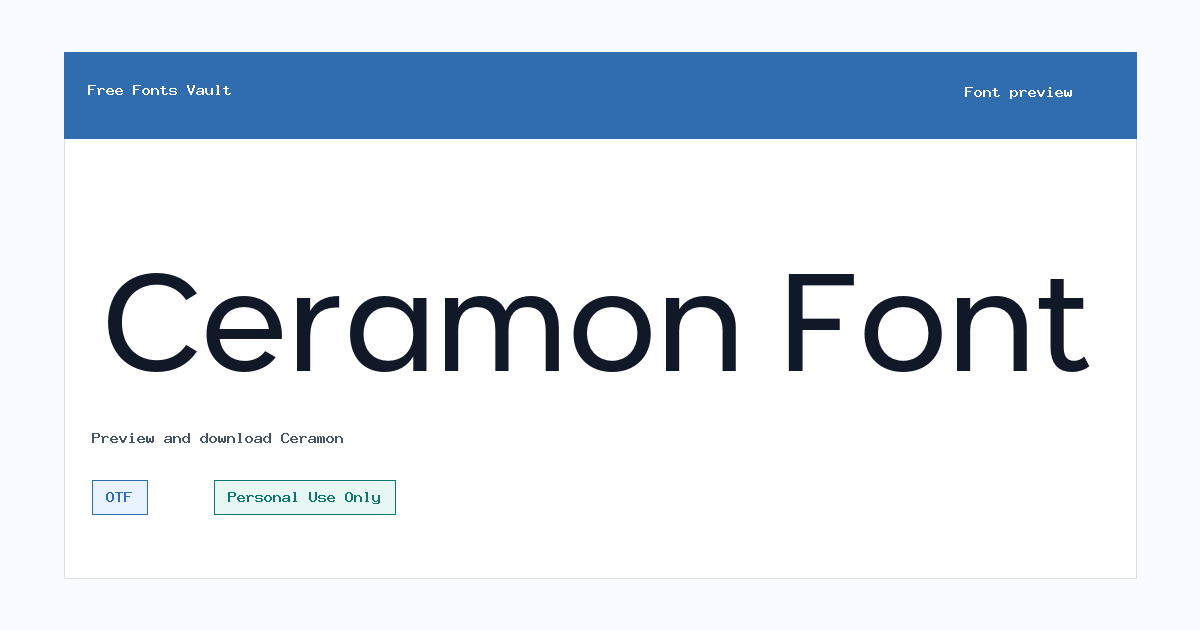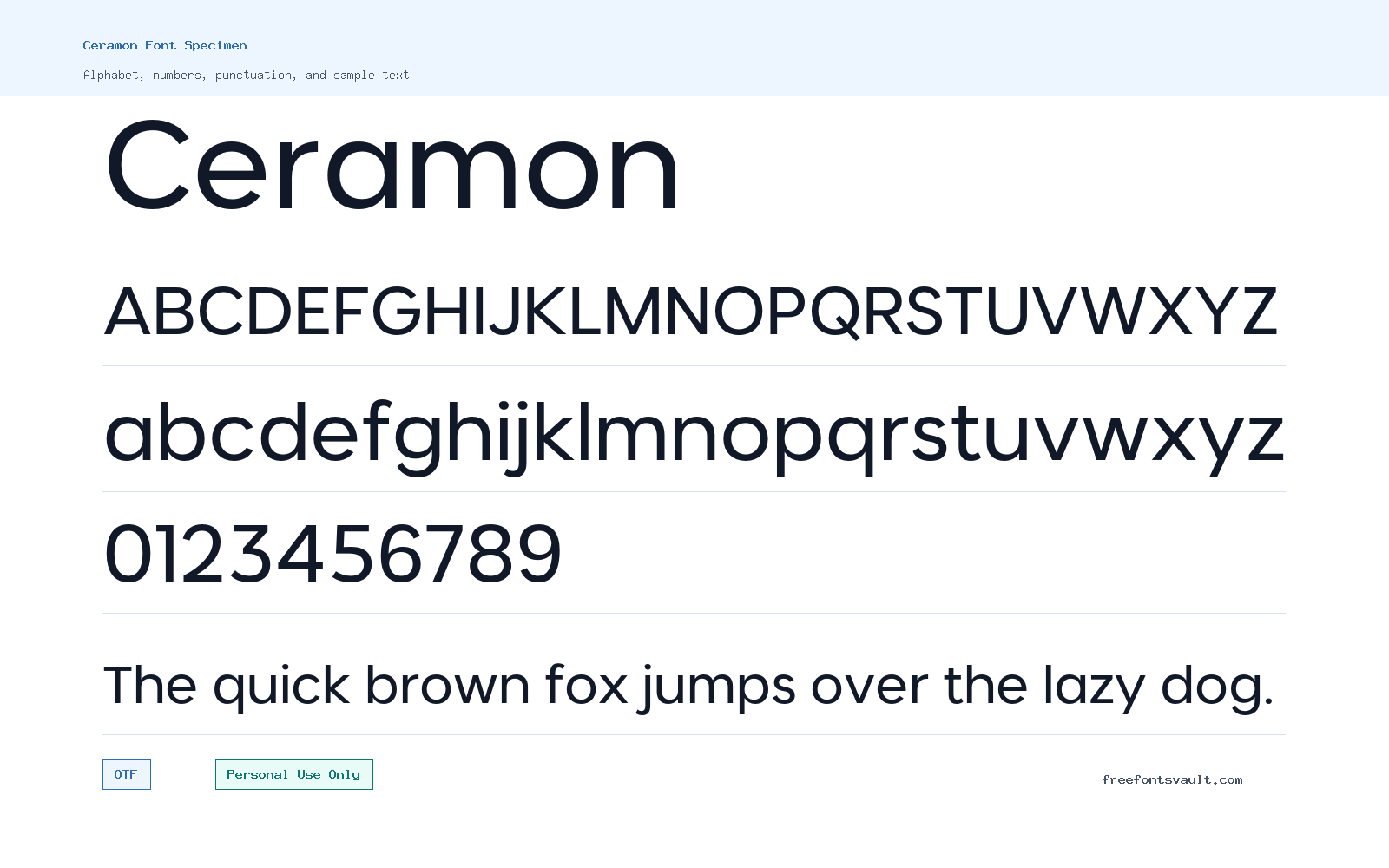
Ceramon
- Designer Zohan Nur Muchlis
- Foundry Zafara Studios
Ceramon is a sans serif demo font with a clean, modern look for visitors who want to test short titles, branding mockups, and display text before downloading.
About Ceramon Font
Ceramon works best when you treat it as a display-friendly sans serif rather than a long-reading text face. The regular style gives you a straightforward weight for trying names, short headlines, poster lines, social graphics, and simple logo drafts. Because the listed file is an OTF demo, it is a practical choice for quick layout tests where you want to see the shape, spacing, and overall tone of the family before deciding whether it fits your project.
- Clean sans serif appearance suited to short display text, previews, and layout testing.
- Headlines, title cards, posters, and social media graphics.
- Branding drafts, logo mockups, packaging concepts, and short website hero text.
Ceramon is credited to designer Zohan Nur Muchlis and foundry Zafara Studios.
Who designed Ceramon?
Ceramon is credited to Zohan Nur Muchlis, with Zafara Studios listed as the foundry.
Is Ceramon good for body text?
Use it cautiously for long text. It is safer for short display settings unless your own preview tests show that paragraphs remain easy to read.